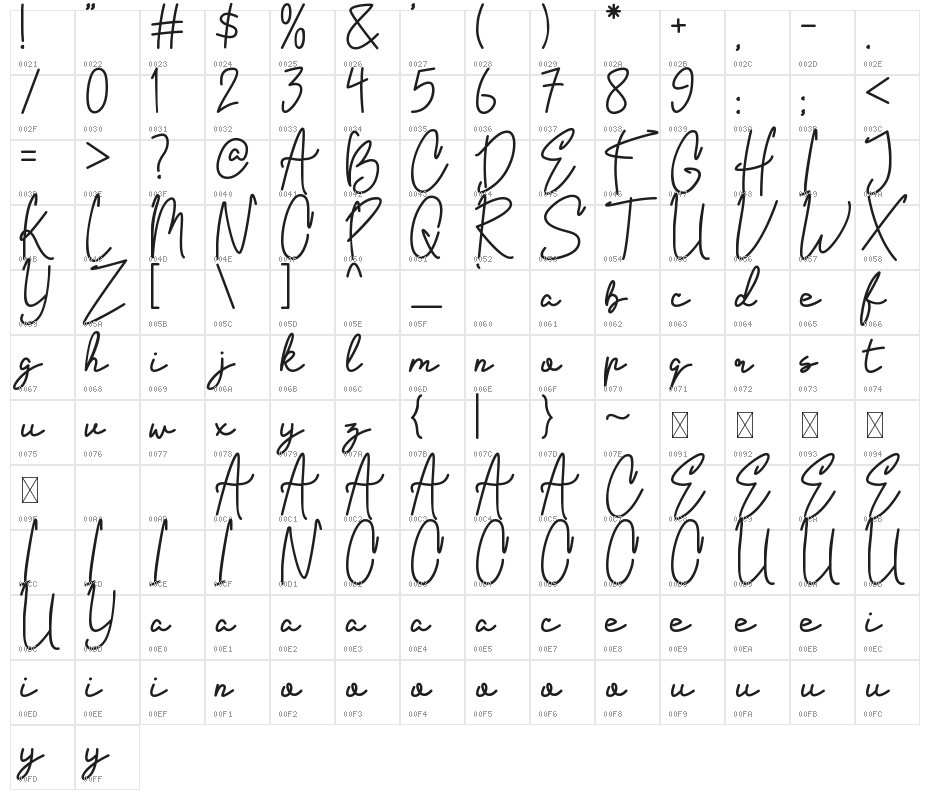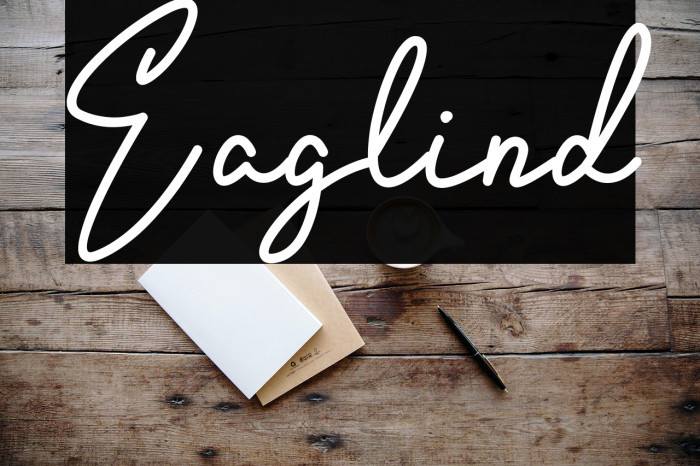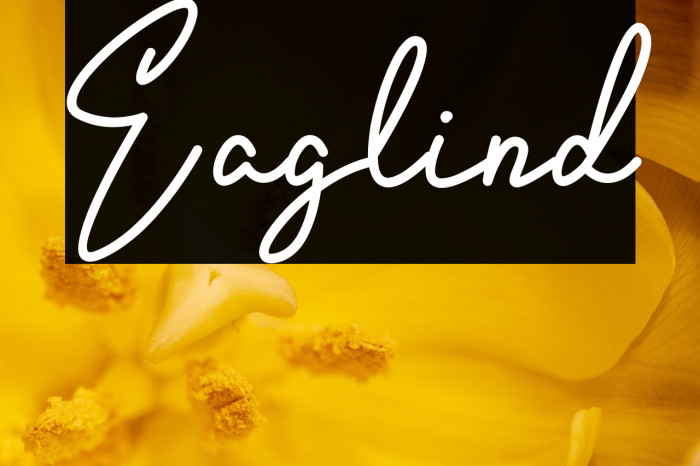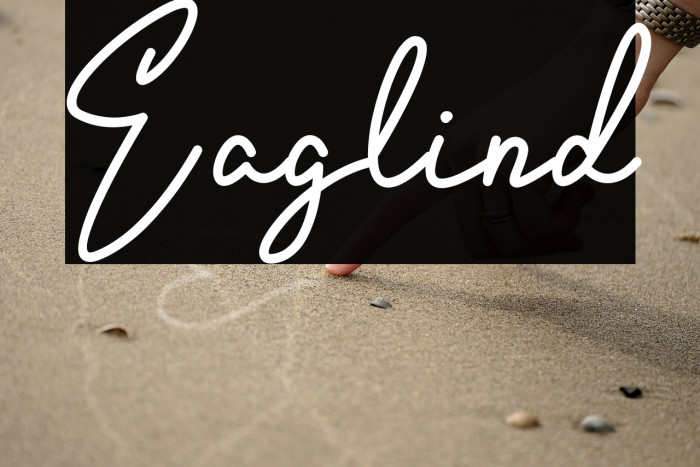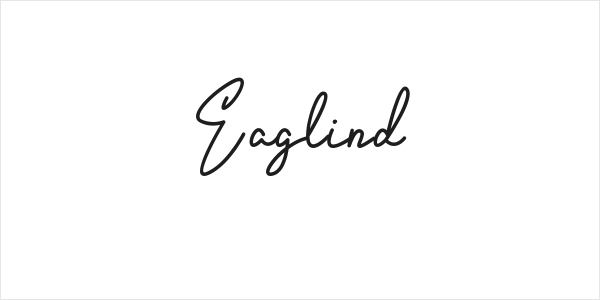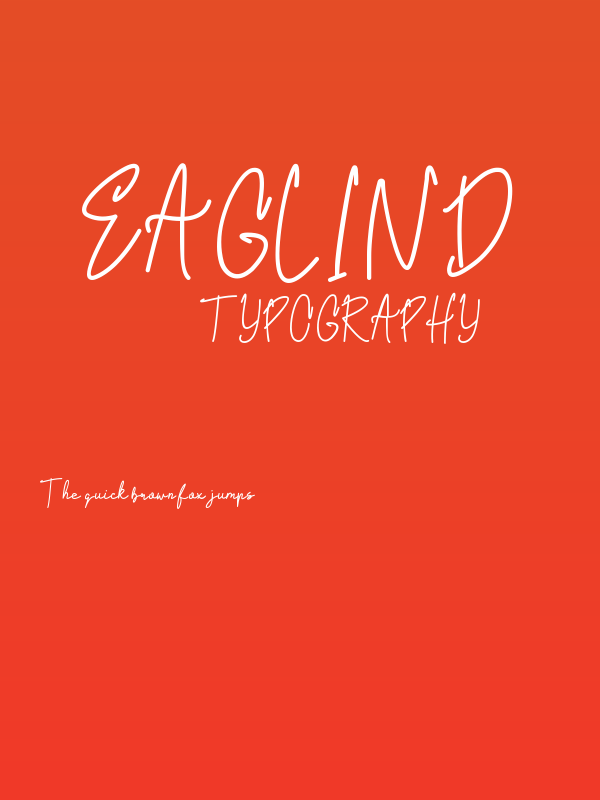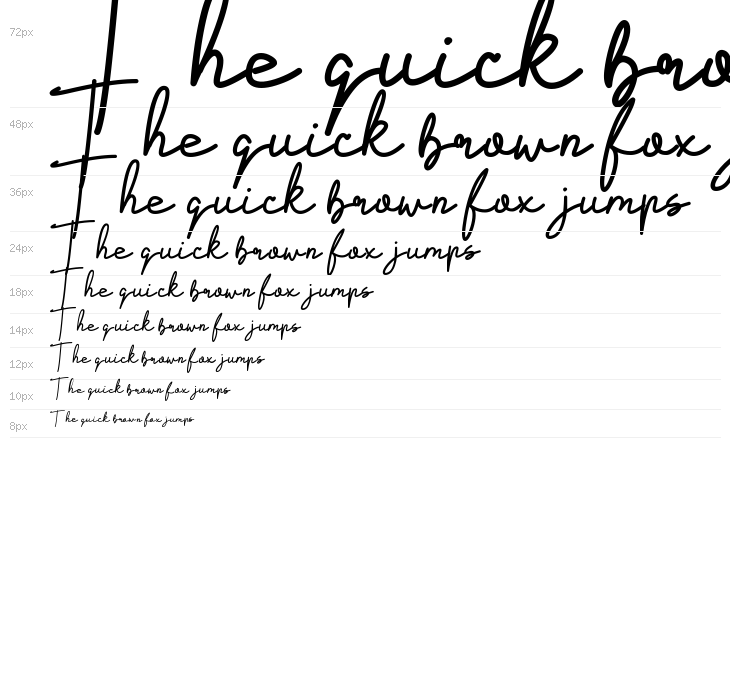
Eaglind Font
Eaglind Description
A casual, handwritten script font with a playful and informal style, featuring smooth, flowing lines and a natural, personal touch.
| Overall Style | Casual, Informal |
| Use Case | Logos, Invitations, Personal notes |
| Proposed Projects | Greeting cards, personal branding, informal invitations. |